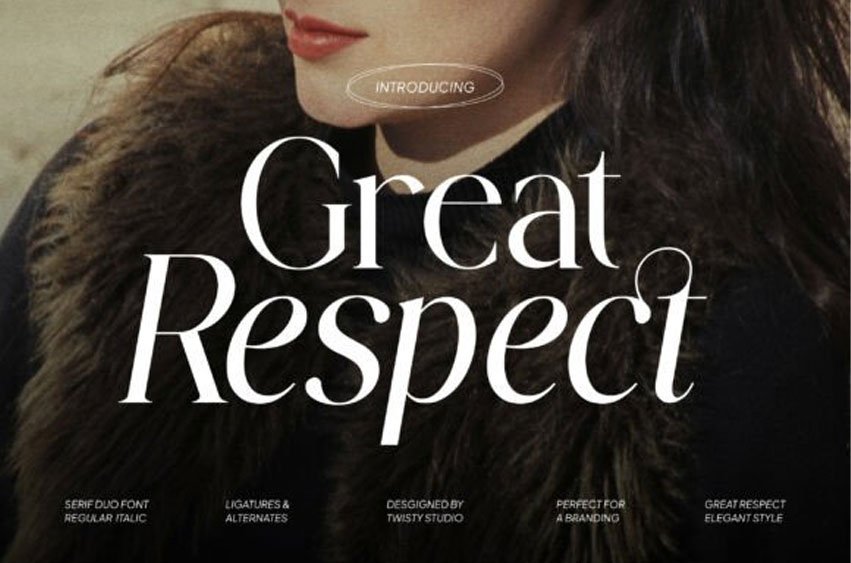
Great Respect Font
Great Respect Font is an elegant and stylish duo serif font designed to bring refinement, balance, and sophistication to modern typography.
With its graceful serif details, smooth curves, and carefully crafted letterforms, Great Respect creates a polished and professional typographic appearance.